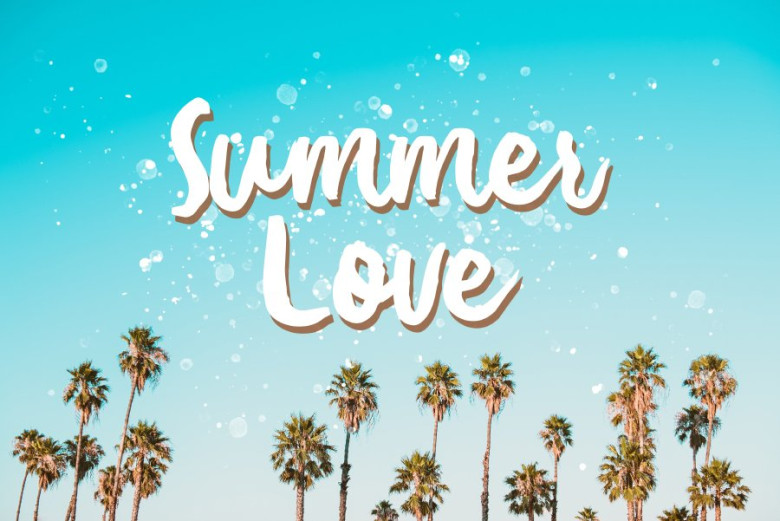
Summer Love Brush Font
Introducing SummerLove Brush Font – An organic and expressive handwritten brush script font designed for versatility. Summer Love Brush designed by zansari. Trendy and feminine style. Summer Love looks lovely on wedding invitations, thank you cards, quotes, greeting cards, logos, business cards and more. Perfect for using in ink or watercolour. Including initial and terminal letters, alternates and multiple language support.